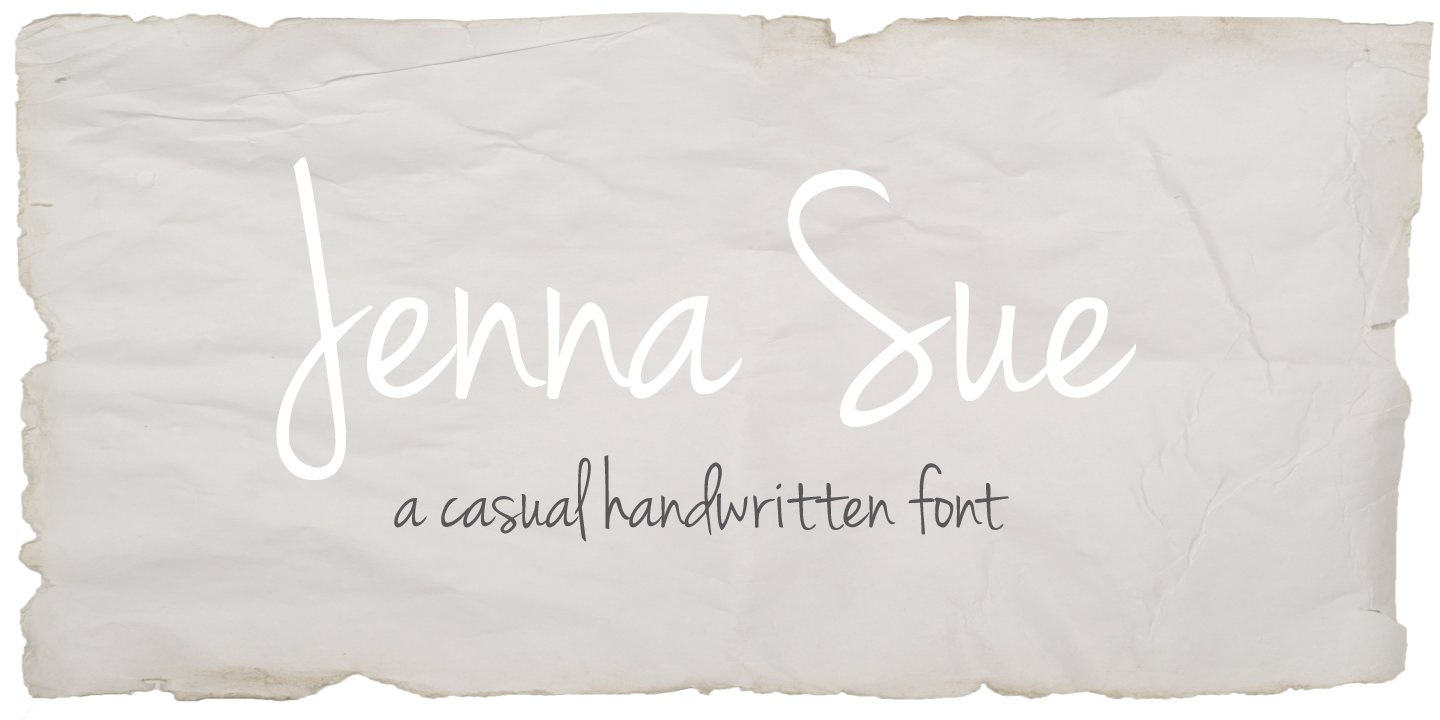
Jenna Sue Pro Font Free Download – A beautifully crafted modern script with effortless elegance and natural flow. Perfect for wedding designs, feminine branding, and heartfelt projects, Jenna Sue Pro combines casual charm with professional polish for truly personal typography.
Where Jenna Sue Pro Shines
This graceful script excels in:
• Wedding Stationery – Invitations, place cards, and romantic signage
• Feminine Branding – Boutique labels, beauty products, and lifestyle blogs
• Handwritten Quotes – Social media graphics and inspirational artwork
• Packaging Design – Artisan goods and personalized products
Why Designers Love Jenna Sue Pro
This font delivers:
Authentic brush pen texture with natural variation
500+ glyphs including alternates and ligatures
Perfect baseline rhythm for readable scripts
Versatile from casual to elegant applications
Jenna Sue Pro Font Features
The complete package includes:
• Regular and Bold weights
• 60+ stylistic alternates
• Swash and terminal variations
• Multilingual support
• Bonus decorative elements